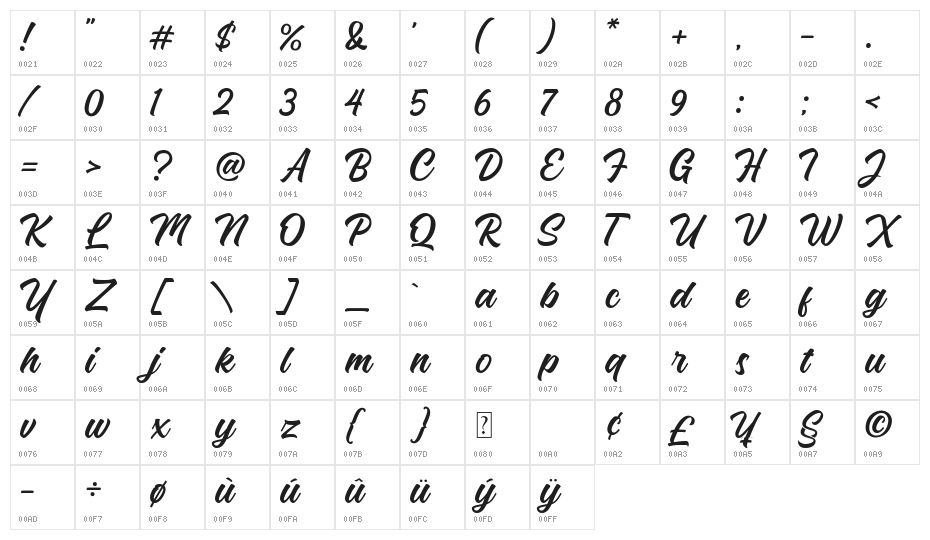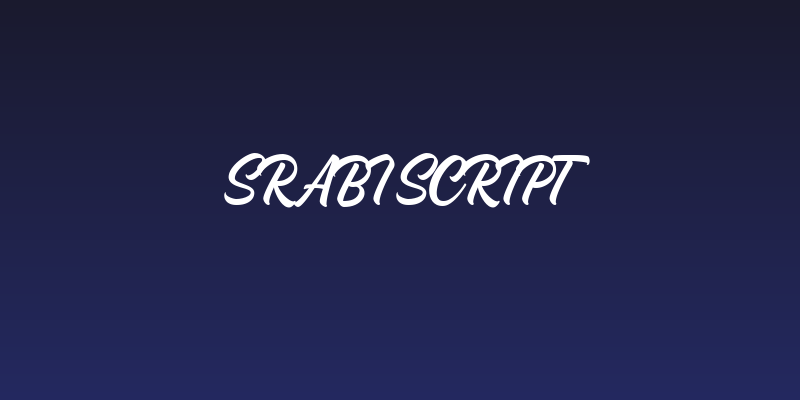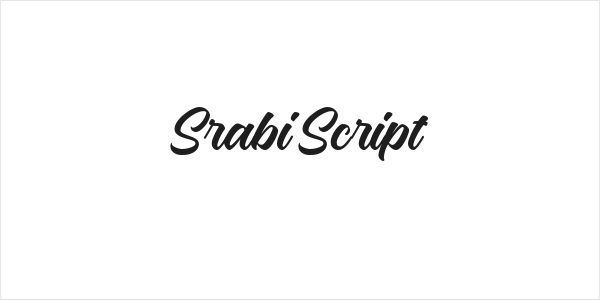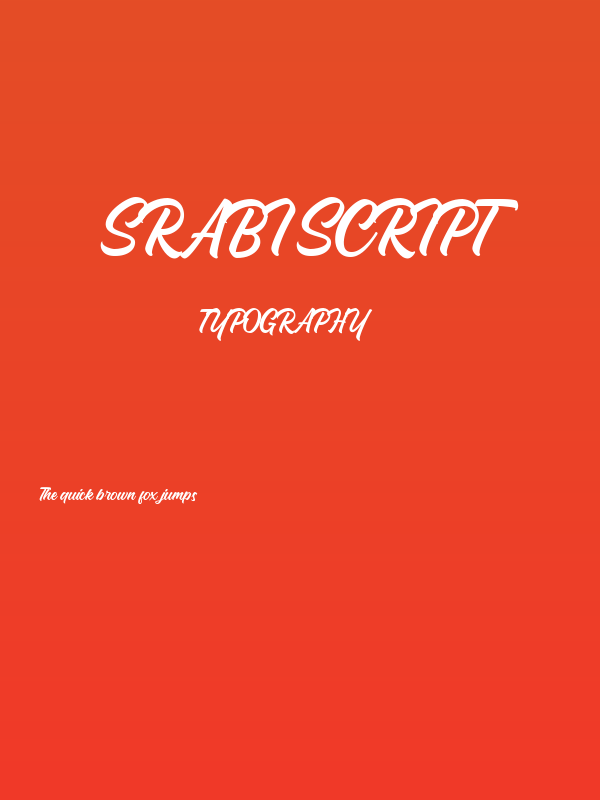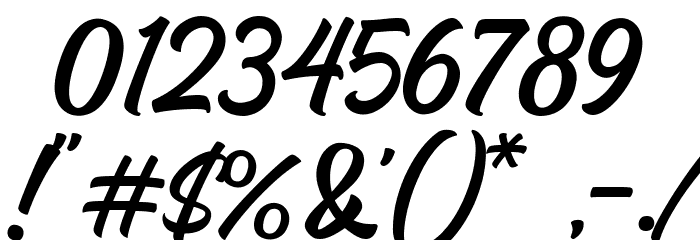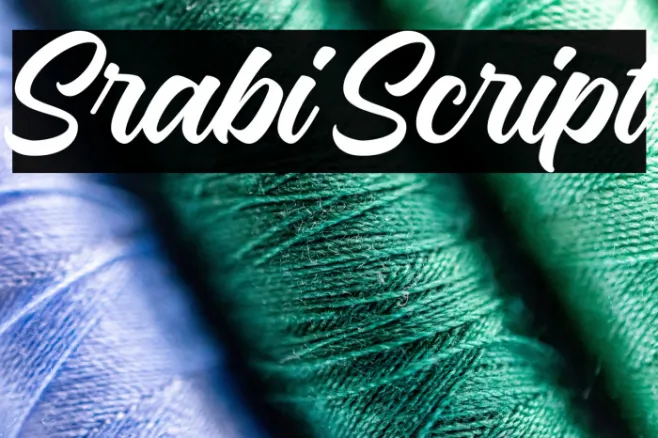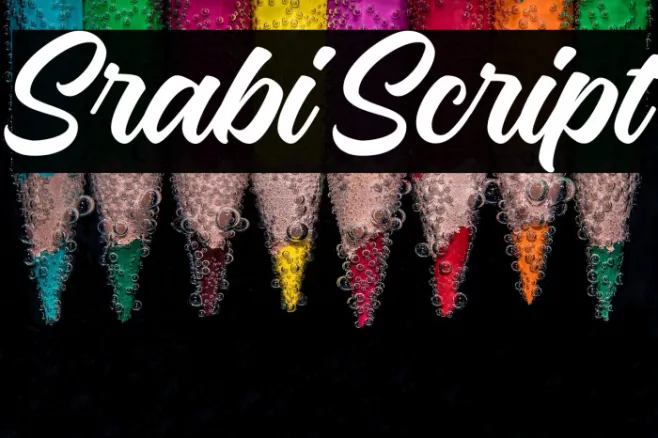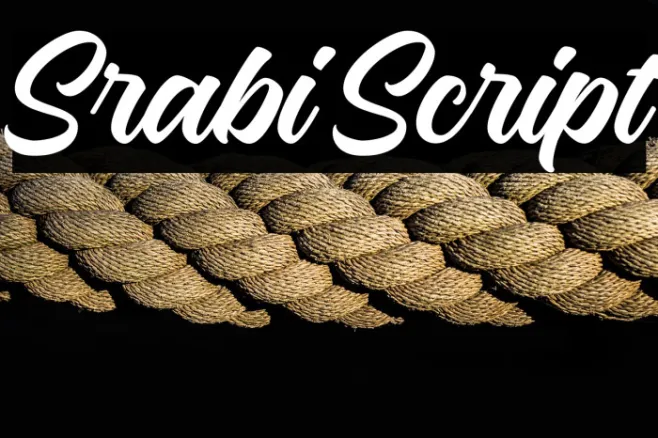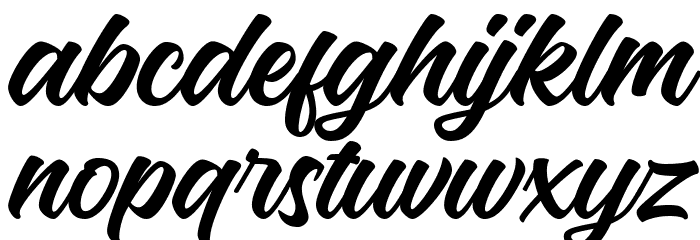
Srabi Script Font
This font exudes a dynamic and energetic vibe with its bold, flowing script style. The characters are connected, creating a sense of movement and fluidity, reminiscent of traditional calligraphy. The uppercase letters are slightly more angular, adding a touch of modernity, while the lowercase letters maintain a smooth, cursive flow. The numbers and special characters complement the alphabet with consistent styling, ensuring a cohesive look across all text. This font is ideal for projects that require a personal touch, such as invitations, greeting cards, or branding materials that aim to convey elegance and creativity.
| Proposed Projects | Perfect for invitations, greeting cards, branding, and creative projects. |